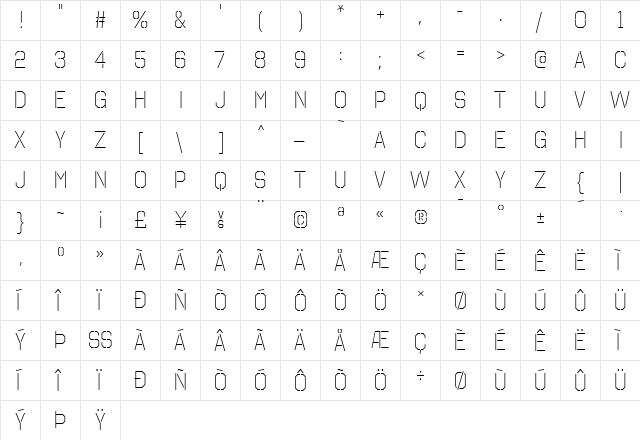
Octin Stencil Light
Design Context for Octin Stencil Typeface
Octin Stencil has the rough pragmatism of spray-painted stencil signage, adding a raw, street-level authenticity to designs. The delicate stroke weight brings airiness and refinement to layouts.
Ideal for industrial branding, streetwear, military-adjacent aesthetics, and urban signage projects.
Pro Tip: Pair Octin Stencil with raw, utilitarian design elements — exposed concrete textures, flat colour, and minimal ornamentation suit it well.